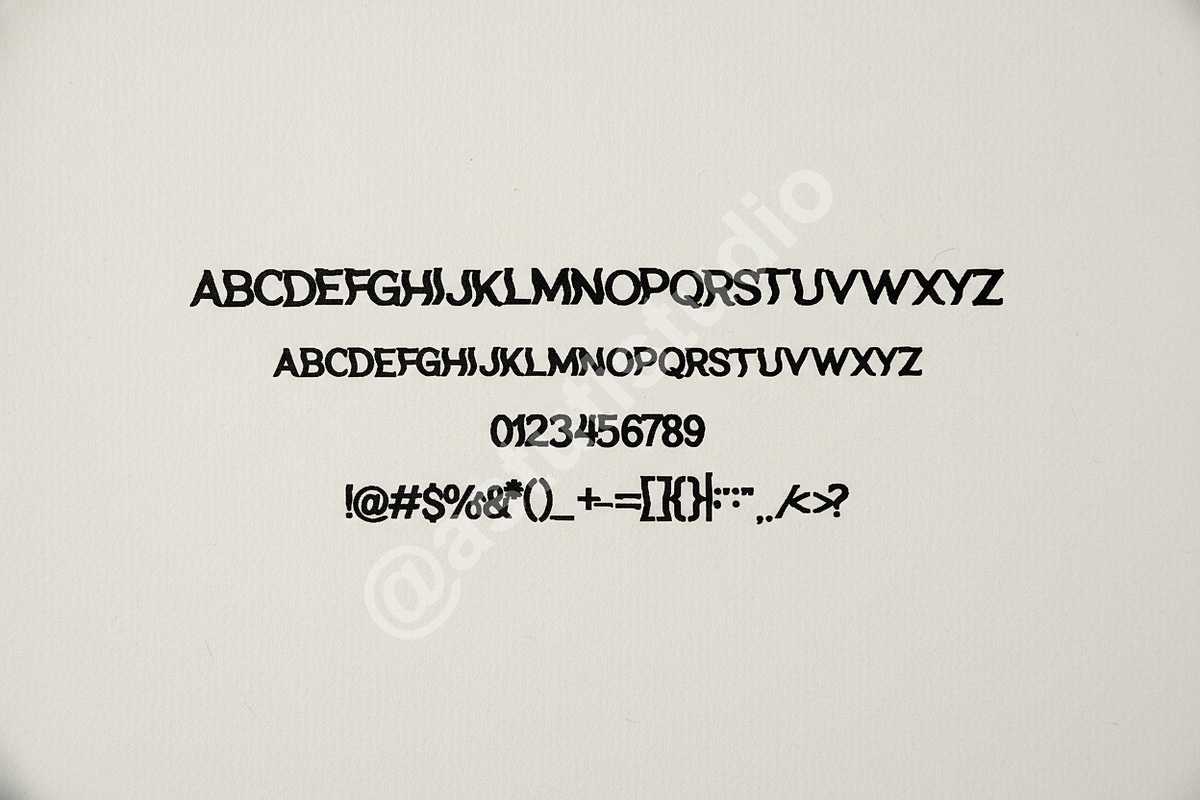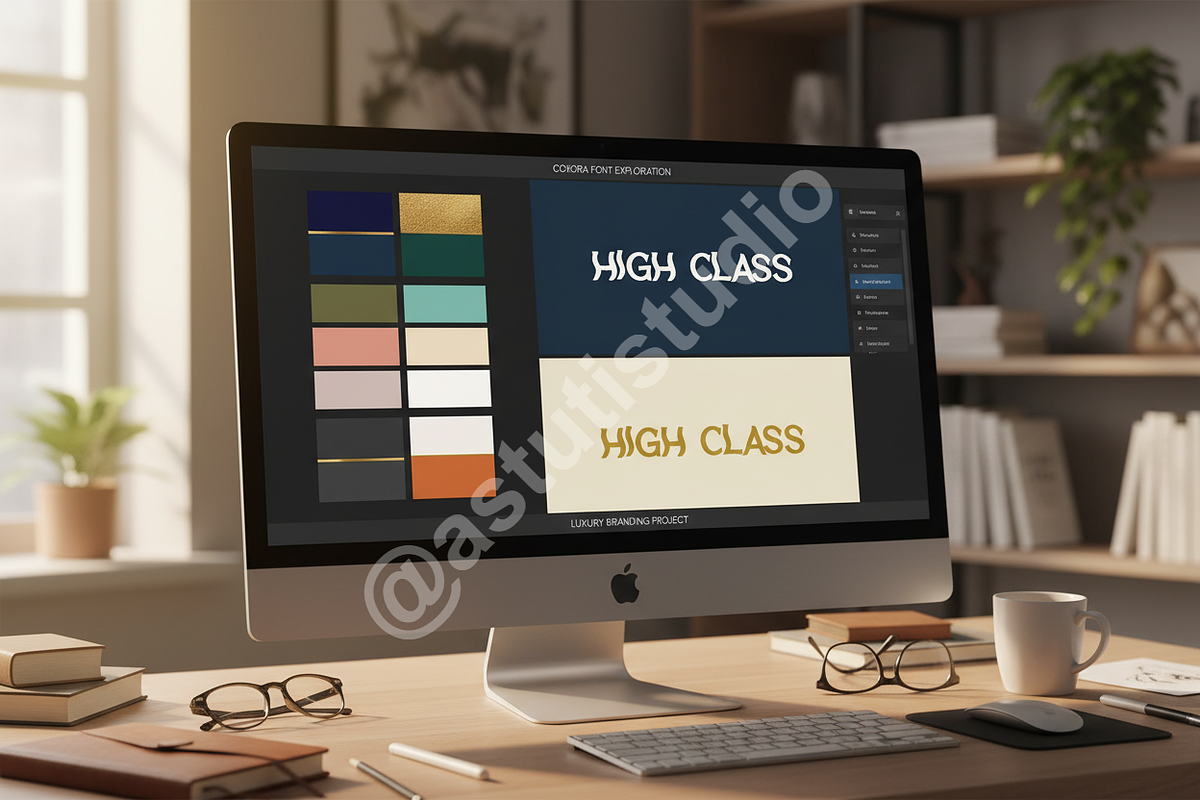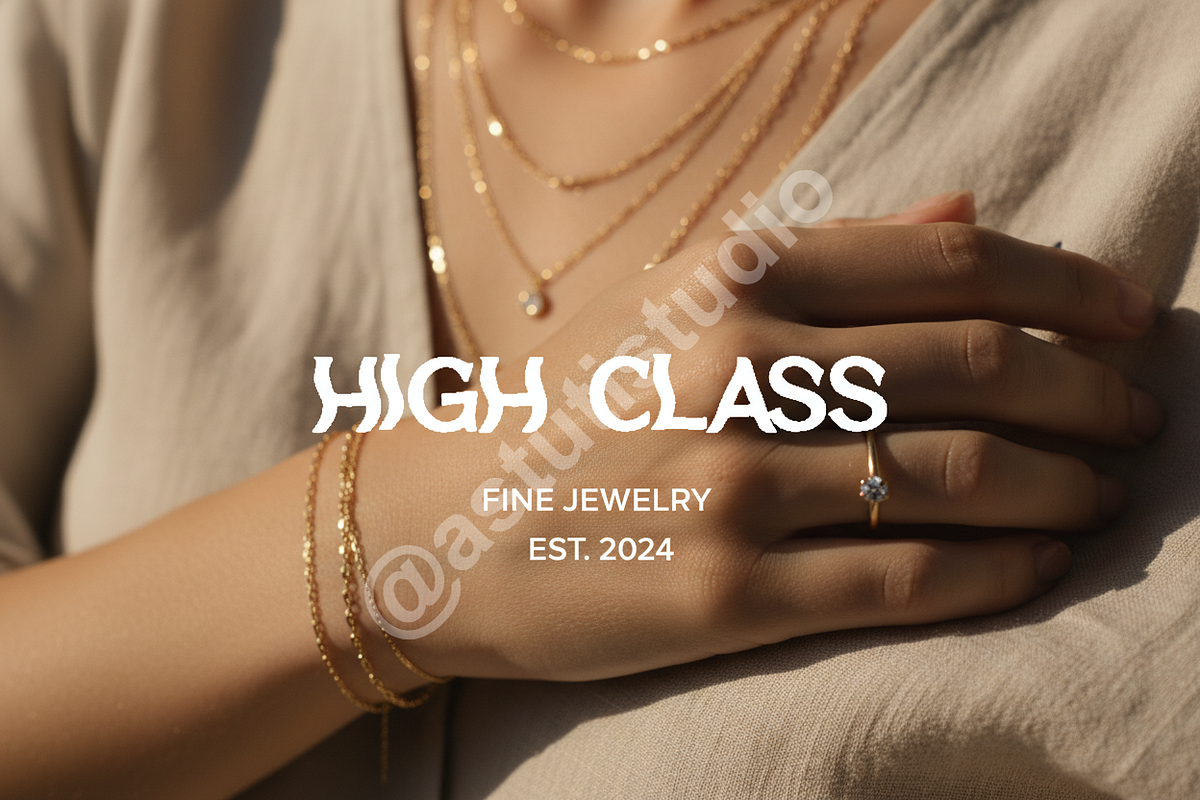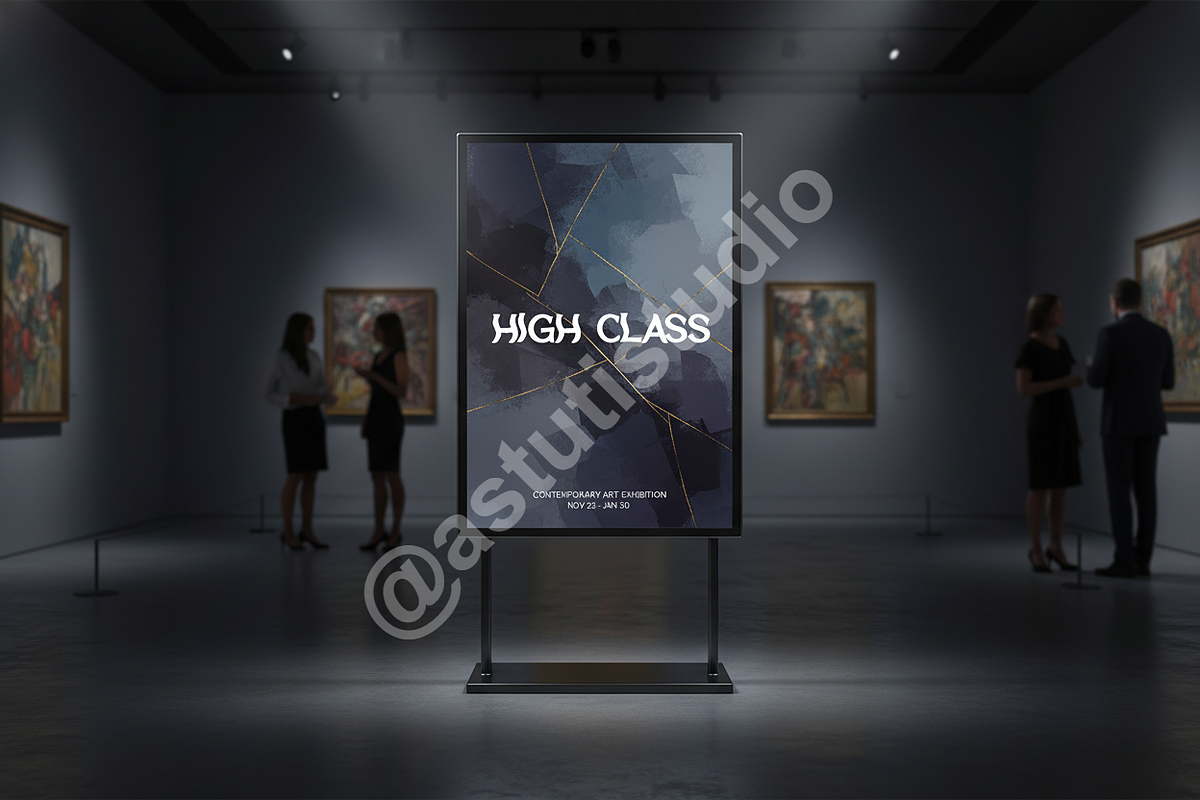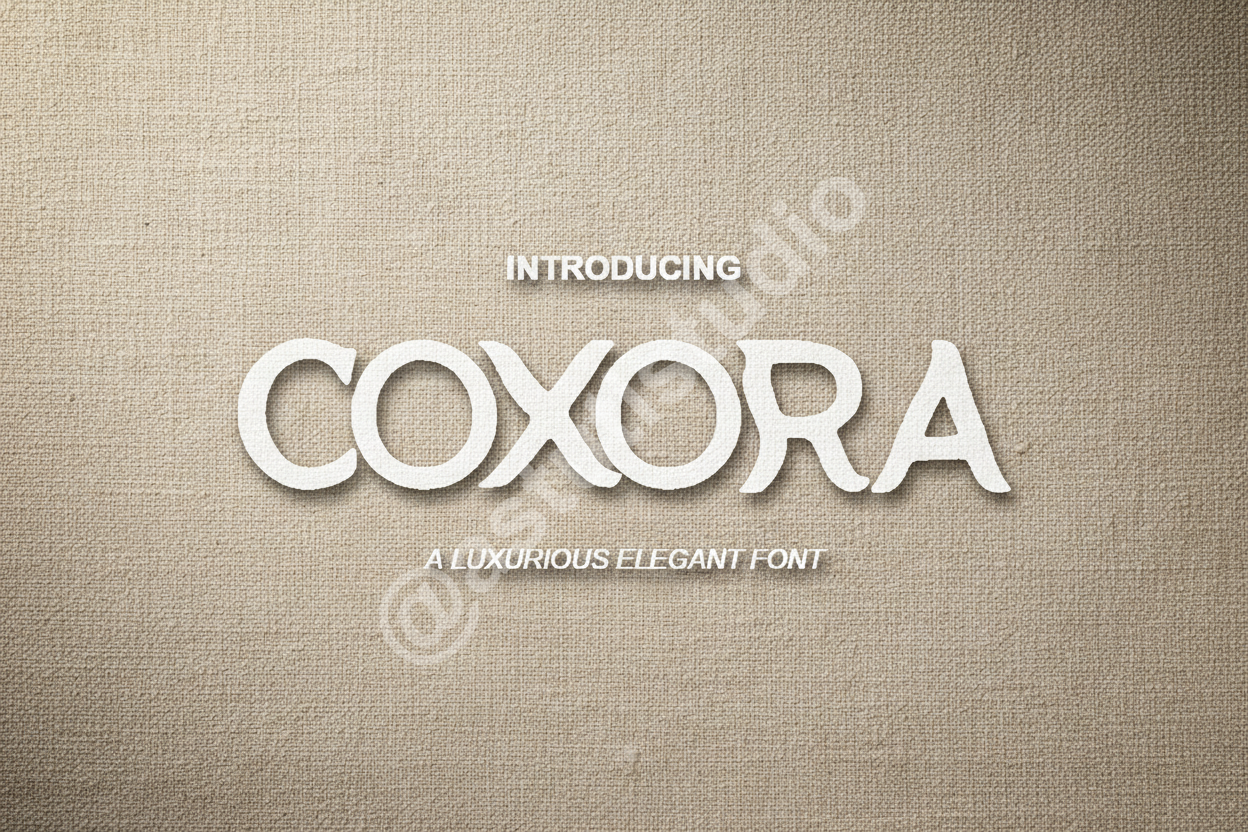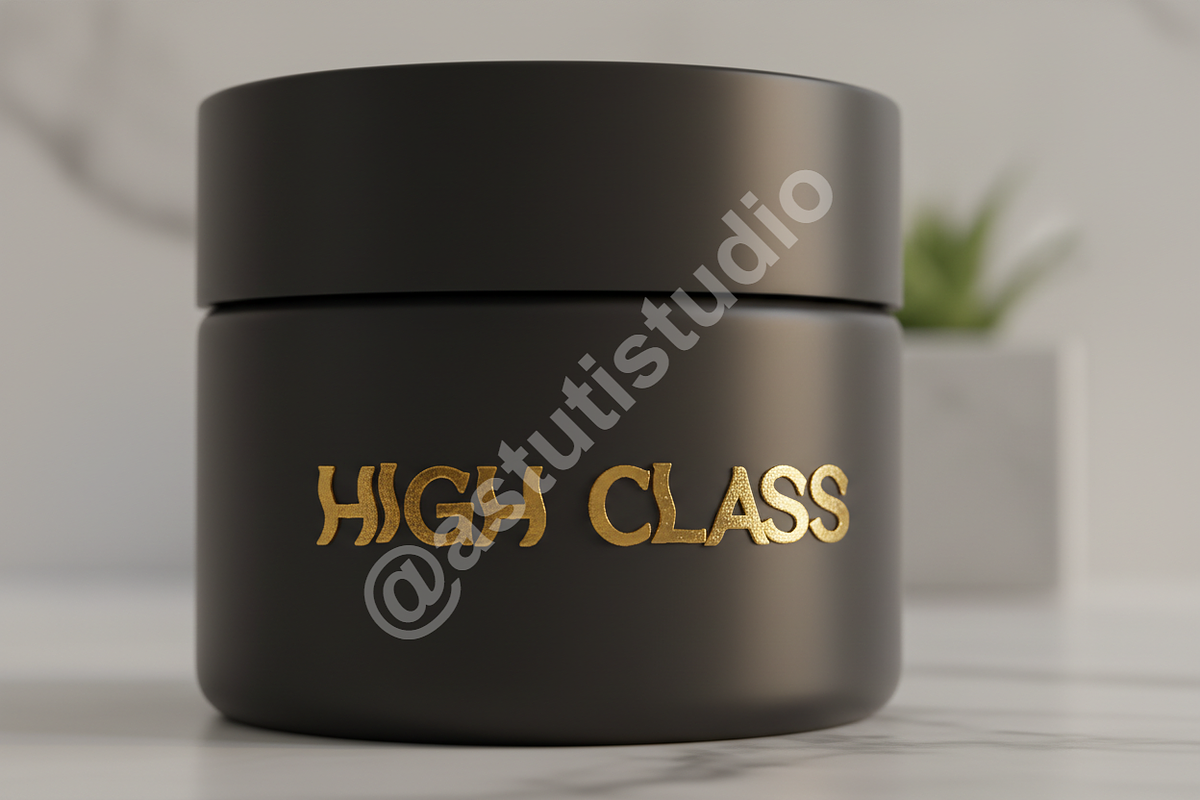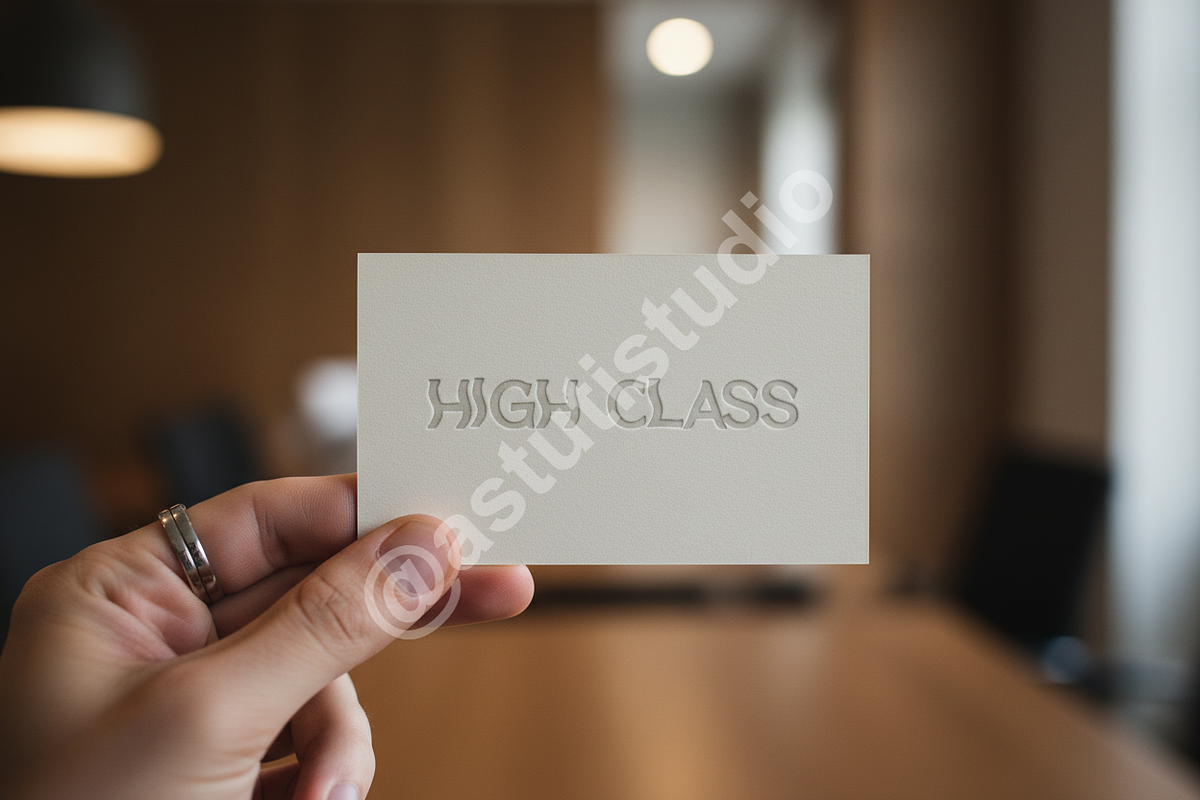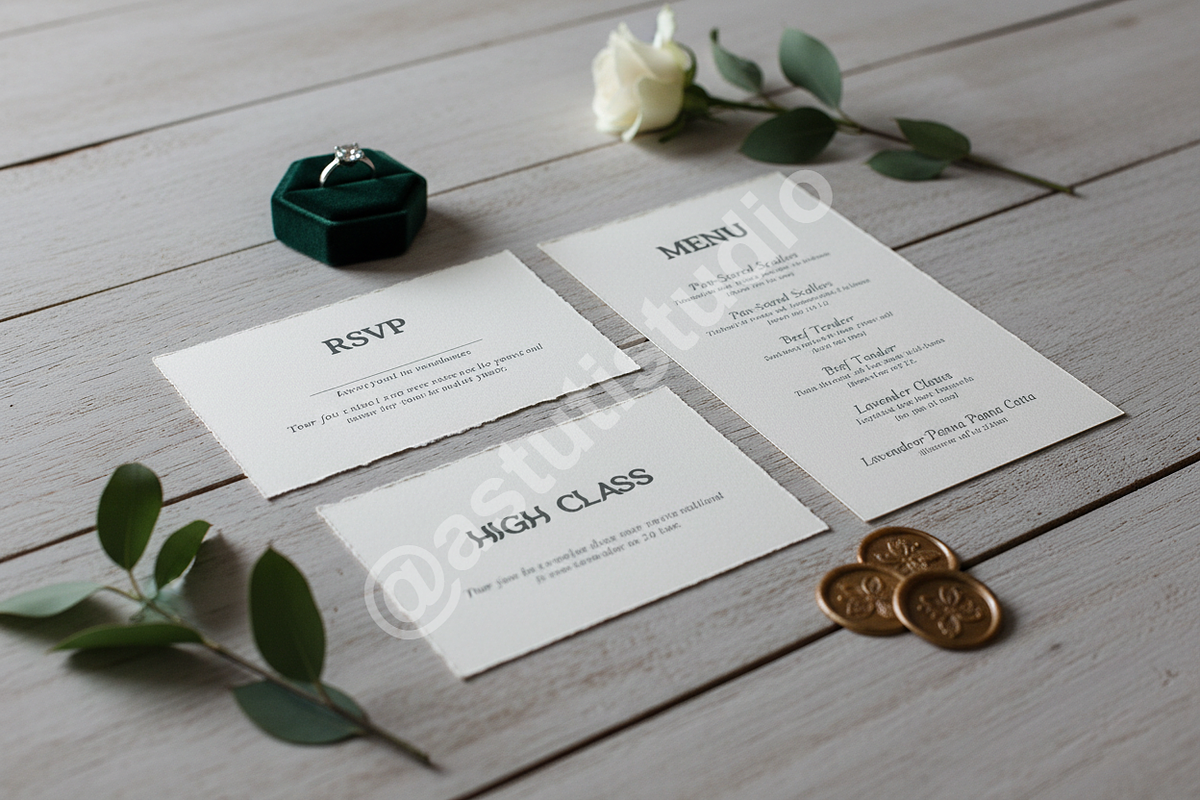
Coxora - Luxury Modern Serif Font Du
Introducing Coxora, a refined and meticulously crafted modern serif font duo designed for the discerning creative. Coxora merges timeless elegance with contemporary flair, providing the perfect typographic foundation for projects requiring a touch of high-end sophistication. It excels in delivering clear, impactful communication while maintaining an aura of luxury. The pairing of the structured serif with a clean, complementary sans-serif ensures maximum versatility across all your premium branding needs.
Coxora is the ultimate choice for elevating your brand identity. It is specifically engineered for:
- Luxury branding and corporate identity
- High-fashion advertisements and retail signage
- Editorial magazine layouts and print design
- Sleek website headers and digital campaigns
- Sophisticated social media graphics and quote posts
- Elegant Serif and Complementary Clean Sans versions included.
- Extensive multilingual support for global luxury markets.
- Full set of standard ligatures and stylistic alternates for custom design.
- Perfectly balanced kerning for optimal readability across print and digital platforms.
- Punctuation, numerals, and comprehensive glyph coverage.